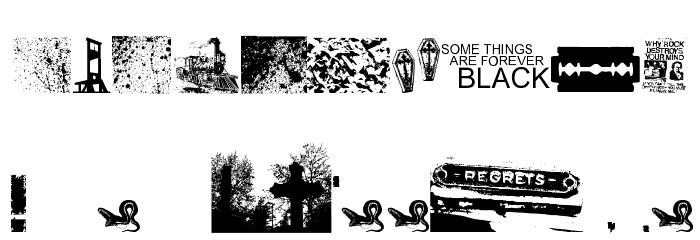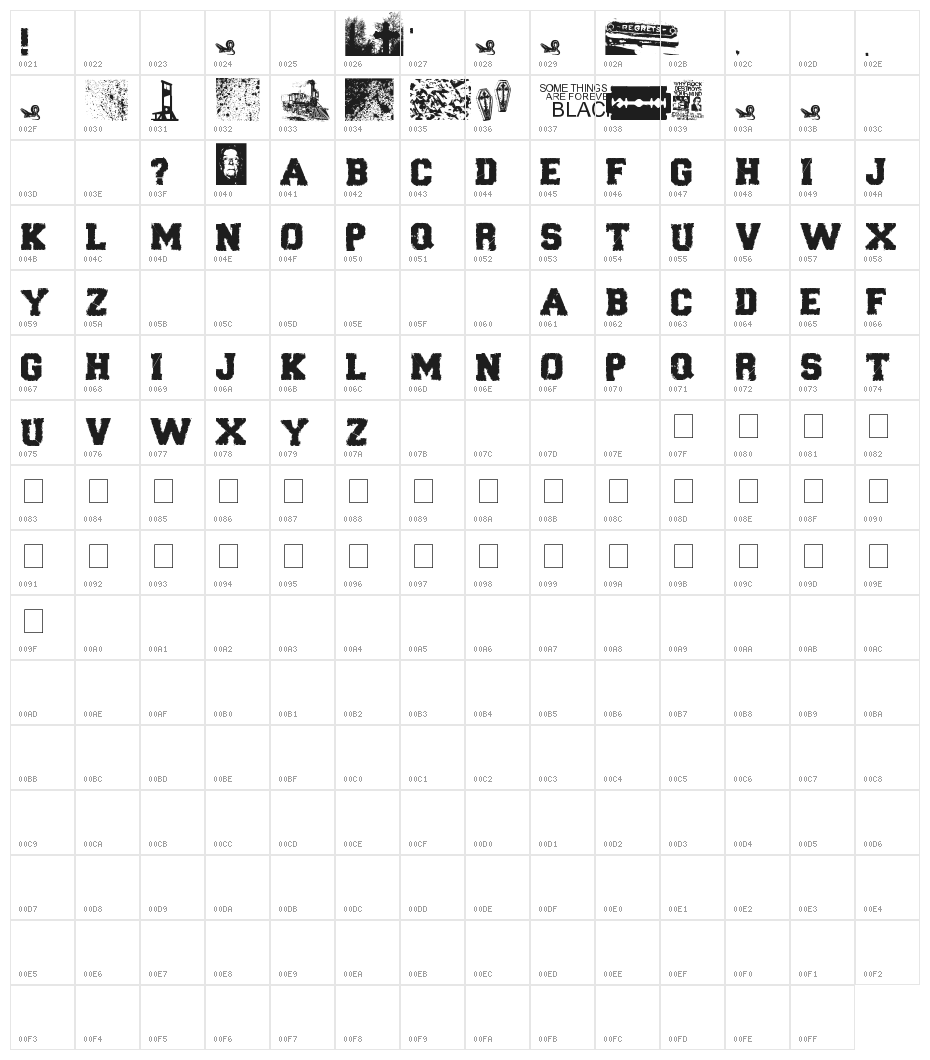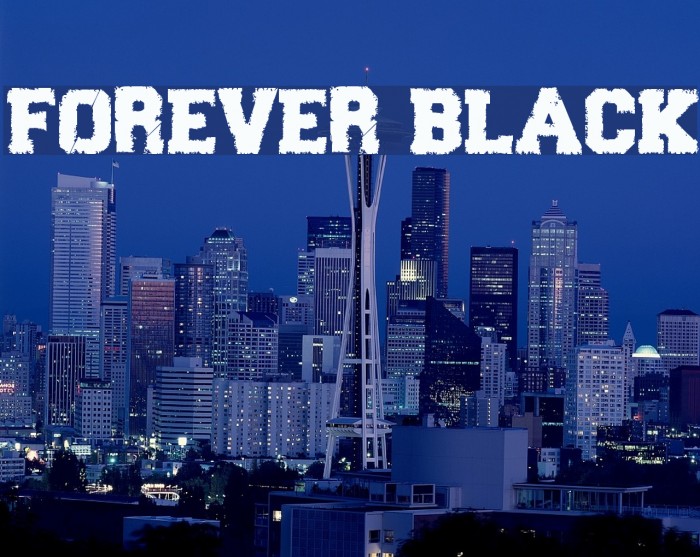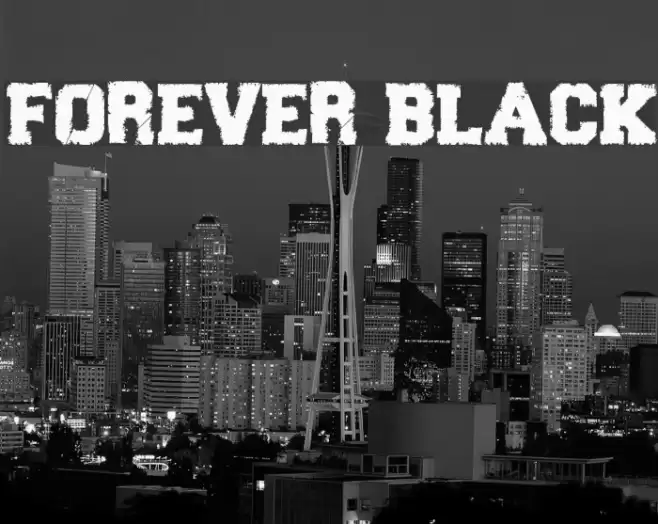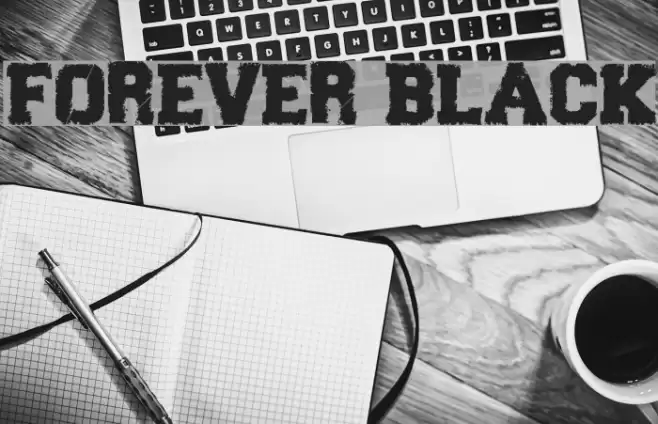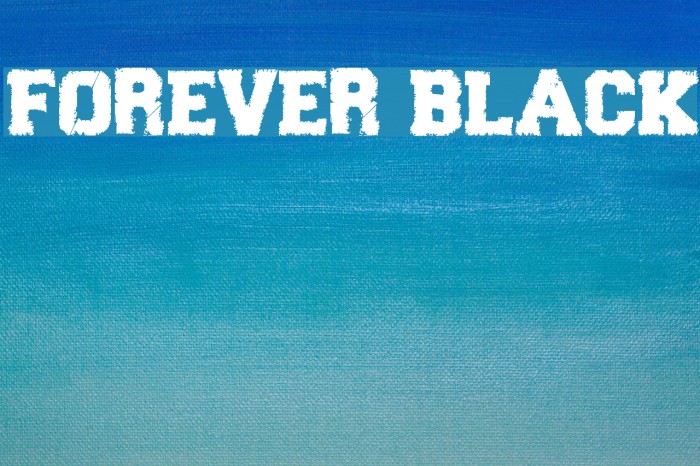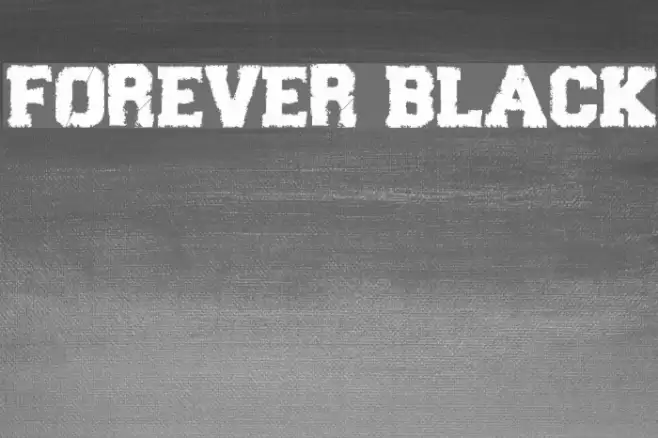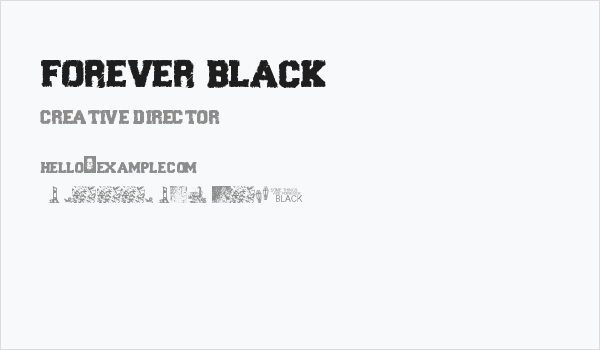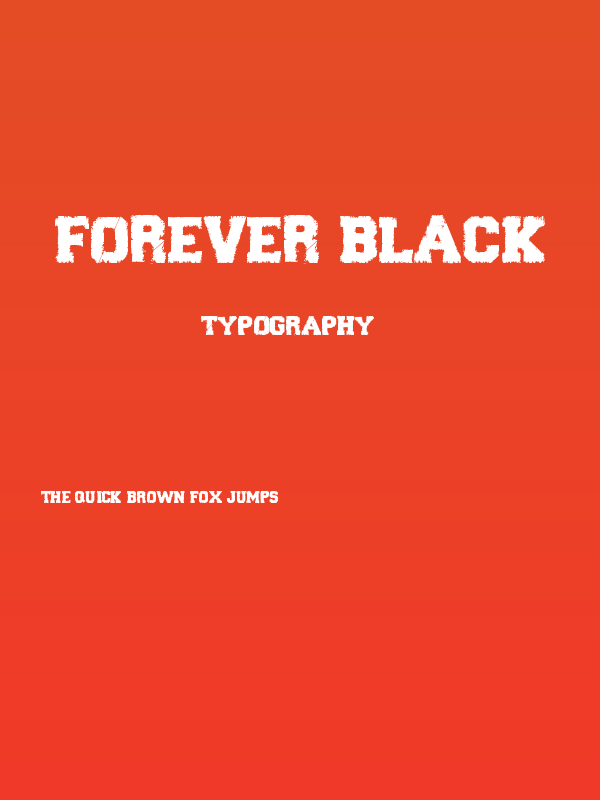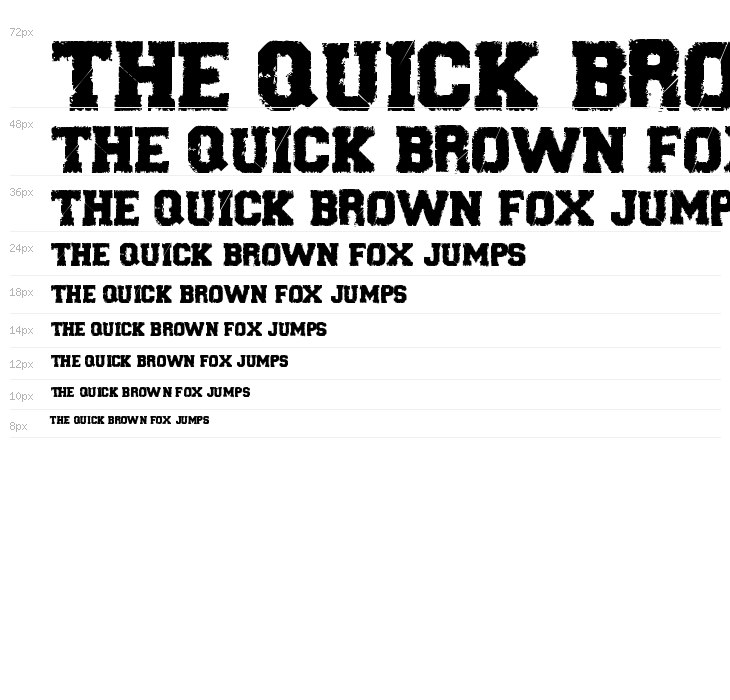
Forever Black Font
Forever Black Description
This font features a bold, distressed style with a rough, textured appearance. The characters are uppercase and have a rugged, grunge-like aesthetic, making them stand out with a unique, edgy vibe. The texture gives the impression of being worn or eroded, adding a sense of depth and character. This design is ideal for projects that require a strong, impactful visual presence. The font's boldness and texture make it suitable for creating eye-catching headlines or titles. Its distinctive style can evoke a sense of rebellion or nonconformity, making it perfect for creative and artistic projects.
| Overall Style | Grunge, Edgy |
| Proposed Projects | Ideal for album covers, posters, t-shirt designs, and branding for edgy or alternative products. |